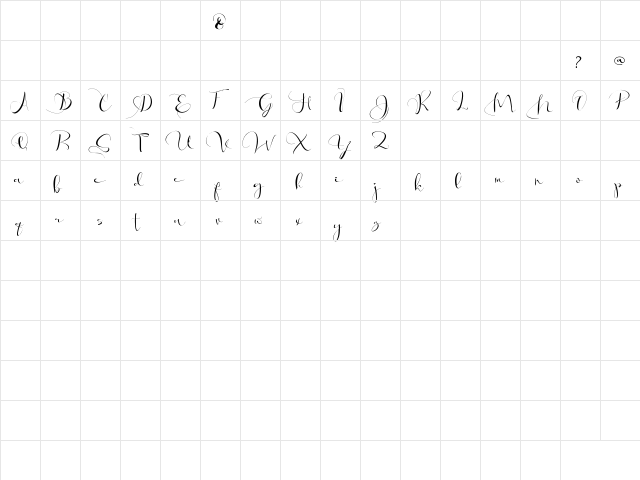
Via Vallen Regular
| Designer | Aldedesign 2018 |
Design Context for Via Vallen Typeface
Via Vallen is a composed and adaptable typeface that performs quietly and consistently across a wide range of design contexts.